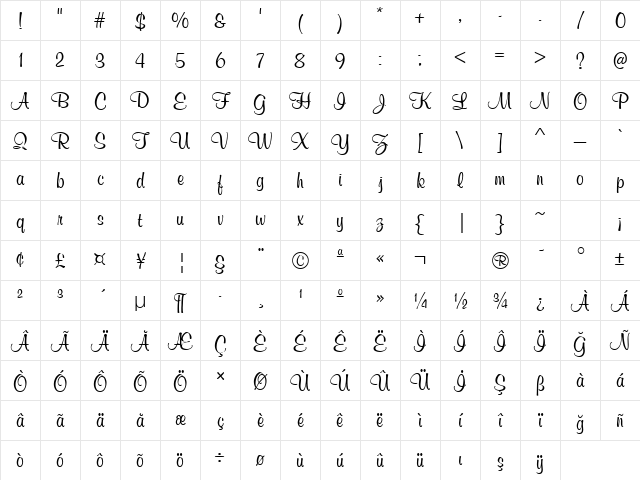
Mural Script Regular
Design Context for Mural Script
Mural Script flows with the natural rhythm of handwritten lettering, making it ideal for designs that call for warmth and personal expression.
Font Pairing: Combine Mural Script with a simple geometric sans for maximum contrast - the tension between flowing curves and clean structure is a classic typographic pairing.
Pro Tip: Use Mural Script for short runs of text - names, titles, or taglines. Extended body copy in script faces tires the eye quickly.